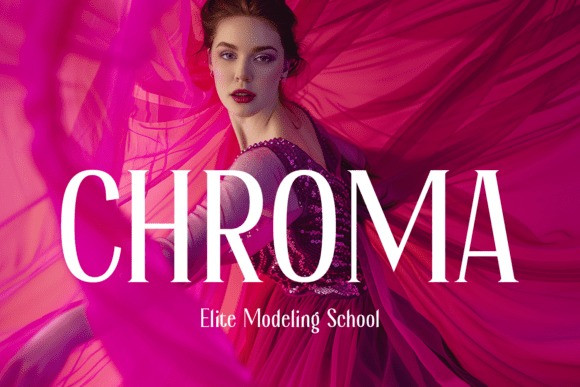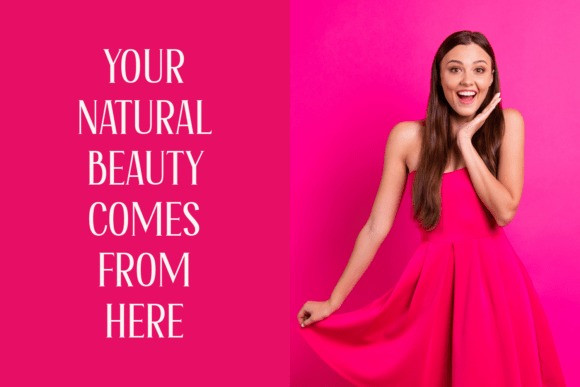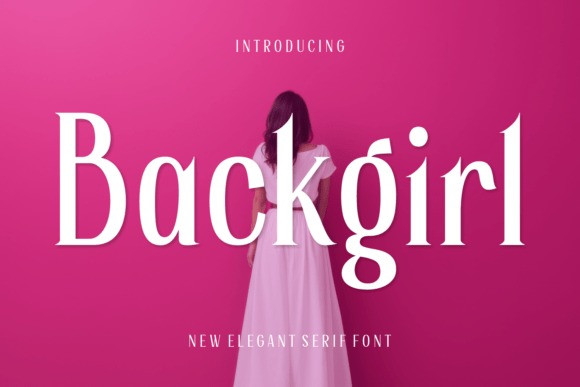
Backgirl Font
Backgirl Font, an awe-inspiring serif font that acts as a perfect instrument to elevate your creation. Infused with an aura of elegance and class, this typeface finds a delicate balance between modern minimalism and timeless style.
Designed with a fashion-forward and stylish perspective, Backgirl relishes a distinctive applicability – making it an effortless fit for chic branding projects, captivating book covers or sophisticated web designs. Its clean lines and soft contours render it a stunning typography choice for refined social media content, making each post a testament to understated beauty.
Adorn your business with an air of casual grace, let your logos speak in hushed tones of elegance, or give your magazine headlines an irresistible haute couture feel. Moreover, in the domain of packaging and clothing, Backgirl portrays a sense of stylish simplicity, effortlessly enhancing visual aesthetics.
With its feminine appeal and sleek finish, Backgirl pairs immaculately with cosmetology branding endeavors, adding a delicate finesse. Let the simplicity of minimalism meet the luxury of classic serif fonts and watch as Backgirl breathes life into your designs with its beautiful sophistication.